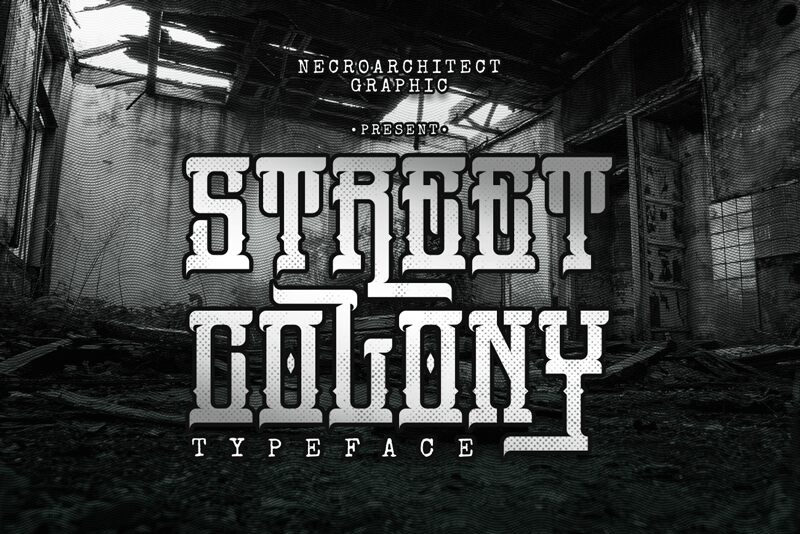
Street Colony by NecroArchitect Graphic is a modern gothic font that will add a touch of edginess to your designs. With its semi-light weight and extra-condensed width, it's perfect for creating attention-grabbing headlines, logos, and posters. This unique typeface is suitable for a variety of projects including music album covers, fashion brands, and urban streetwear. Its bold yet sleek style will give your designs an instant boost of coolness and sophistication. Stand out from the crowd with Street Colony – the ultimate choice for those who dare to be different.